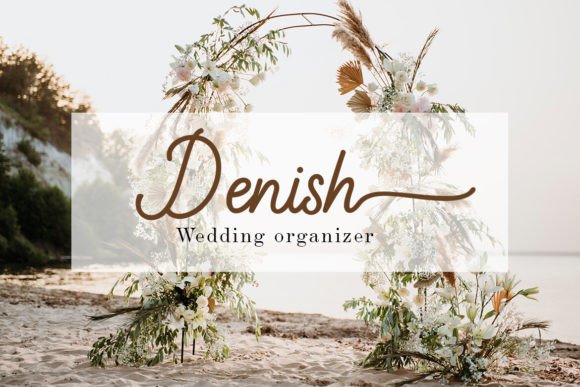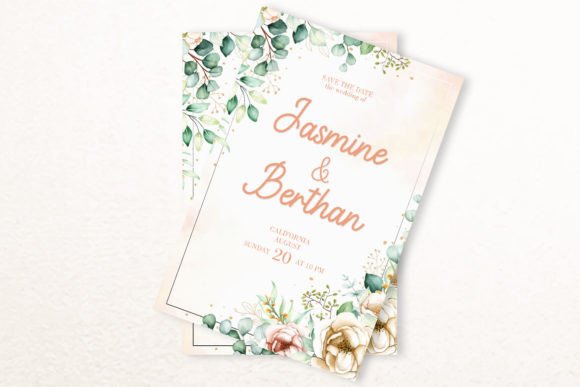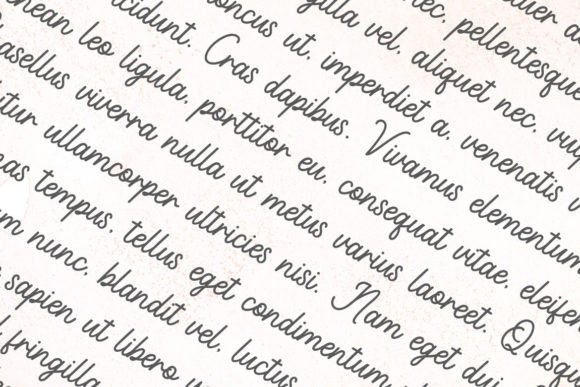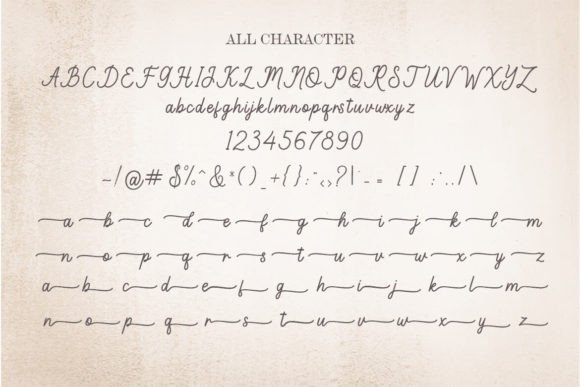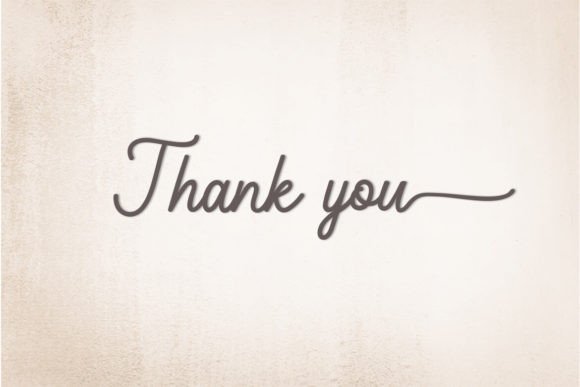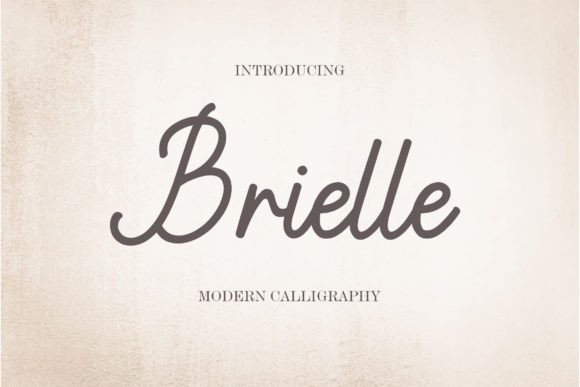
Discover the Elegance of Brielle Script Font: Elevate Your Designs with Sophistication
In the realm of typography, few fonts manage to capture the essence of elegance and sophistication as effortlessly as the Brielle Script Font. This exquisite typeface is a masterpiece of design, blending gentle subtlety with polished refinement to create a visual experience that is nothing short of breathtaking. Whether you’re a designer looking to elevate your brand visuals, a crafter seeking the perfect font for wedding invitations, or simply a typography enthusiast, Font Brielle is sure to captivate with its unique charm and luxurious flair.
The Artistry of Brielle Script Font
Font Brielle is an artfully crafted script font that showcases the beauty of fluid brushwork and graceful curves. Each character is meticulously designed to exude an air of finesse, making it a prime choice for those with discerning aesthetics. The font’s sleek lines and elegant strokes transform any text into a stunning visual statement, perfect for adding a touch of sophistication to a wide range of design projects.
A Font for the Discerning Designer
Font Brielle is more than just a typeface; it’s a statement of style. Its lavish sprinkle of stylish grandeur makes it an ideal choice for designers seeking to create luxurious brand visuals, opulent wedding invitations, and eloquent editorial designs. The font’s upper-class sophistication is sure to impress even the most discerning clients, setting your designs apart from the ordinary and elevating them to new heights of elegance.
Versatility and Application
One of the standout features of Font Brielle is its versatility. Its elegant design makes it suitable for a wide range of applications, from:
- Wedding Invitations: Add a touch of luxury and romance to your wedding stationery with Font Brielle’s sophisticated script.
- Luxury Brand Visuals: Elevate your brand’s visual identity with a font that exudes high-end sophistication and refinement.
- Editorial Designs: Bring a touch of elegance to your editorial designs, whether it’s for a magazine, blog, or book.
- Digital and Print Media: Font Brielle is perfect for both digital and print media, ensuring your designs look stunning across various platforms.
Why Choose Font Brielle?
With so many fonts available, why choose Font Brielle? Here are just a few reasons why this stunning script font stands out:
- Unique Design: Font Brielle’s distinctive design ensures your projects will stand out from the crowd.
- Elegance and Sophistication: The font’s luxurious feel adds a touch of high-end sophistication to any design.
- Versatility: Suitable for a wide range of applications, from wedding invitations to editorial designs.
Font Brielle is a true gem in the world of typography. Its artful blend of gentle subtlety and polished sophistication makes it an ideal choice for designers and crafters seeking to elevate their designs. With its luxurious flair, versatility, and ease of use, Font Brielle is sure to become a go-to font for anyone looking to add a touch of elegance and sophistication to their projects. Experience the allure of Font Brielle for yourself and discover a new level of typographic excellence.
Whether you’re looking to create stunning wedding invitations, luxurious brand visuals, or eloquent editorial designs, Font Brielle is the perfect choice. Its unique design, elegance, and versatility make it an indispensable tool in any designer’s arsenal. So why wait? Unlock the full potential of your designs with Font Brielle and take your typography to new heights of sophistication and style.